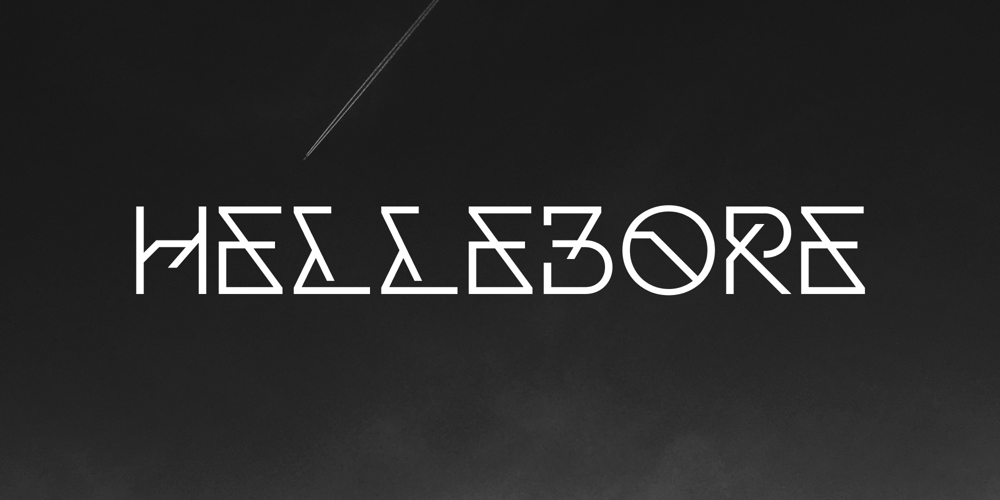
Hellebore Font Family was designed by Eugene Bunin and published by Harvester Type. Hellebore contains 1 styles and family package options. Hellebore is a font inspired by the logo and the game Mortal Shell itself. The font conveys the medieval era, the spirit of cutting weapons and dark fantasy. It is sinister, dark, dark, Gothic, rough and sharp. Perfect for logos, headlines, posters, banners.The font is named after the plant of the same name. The name conveys the font’s mood.